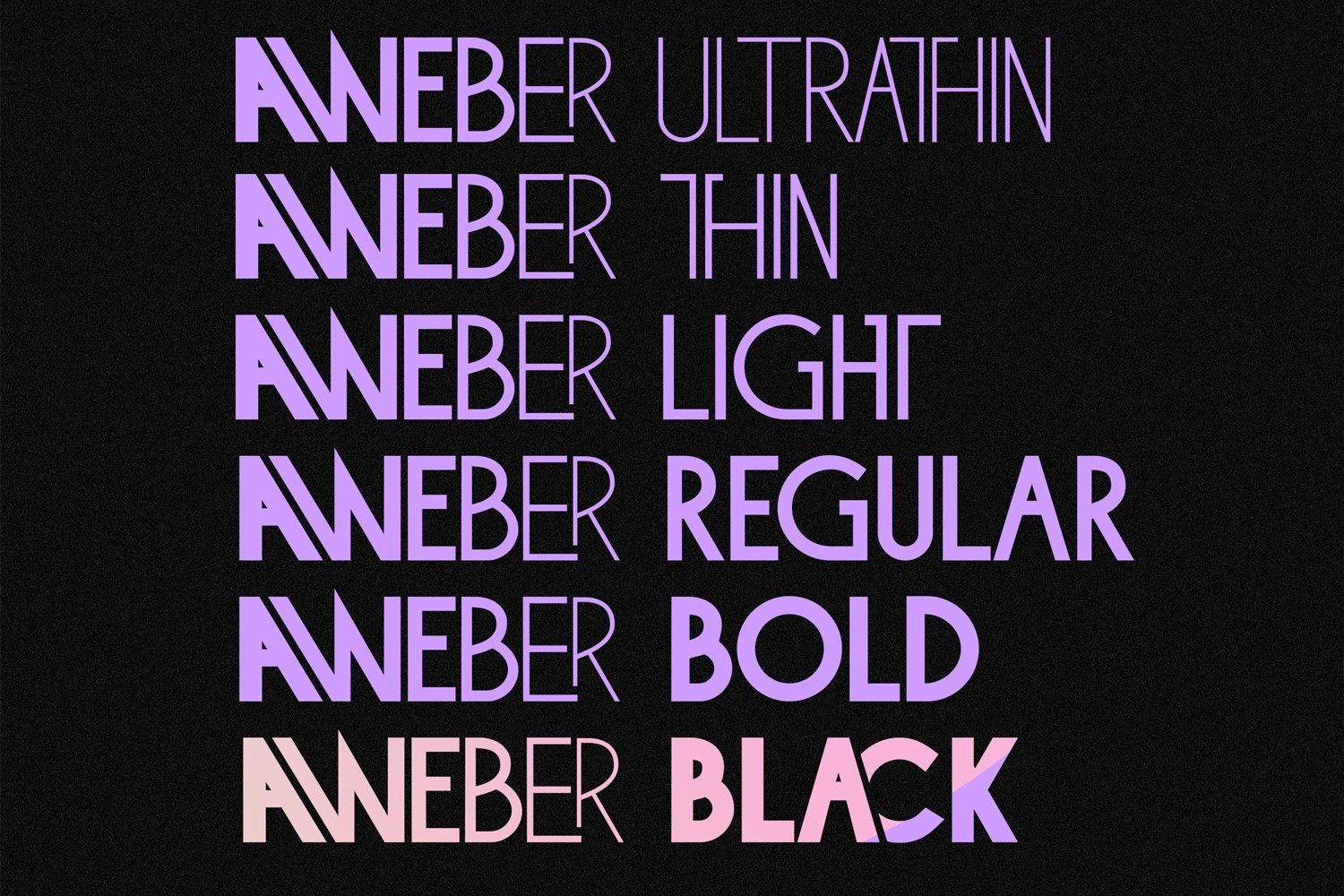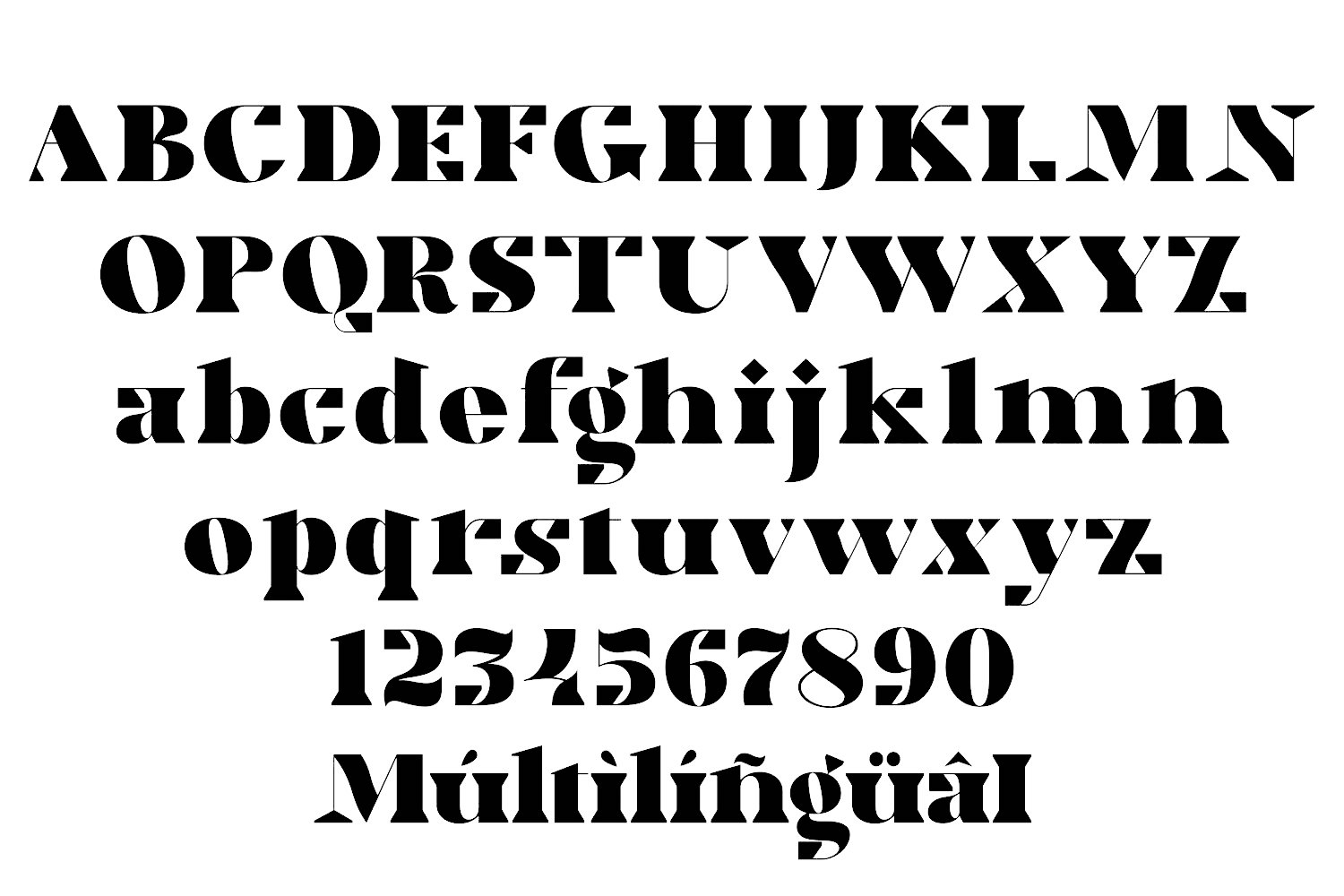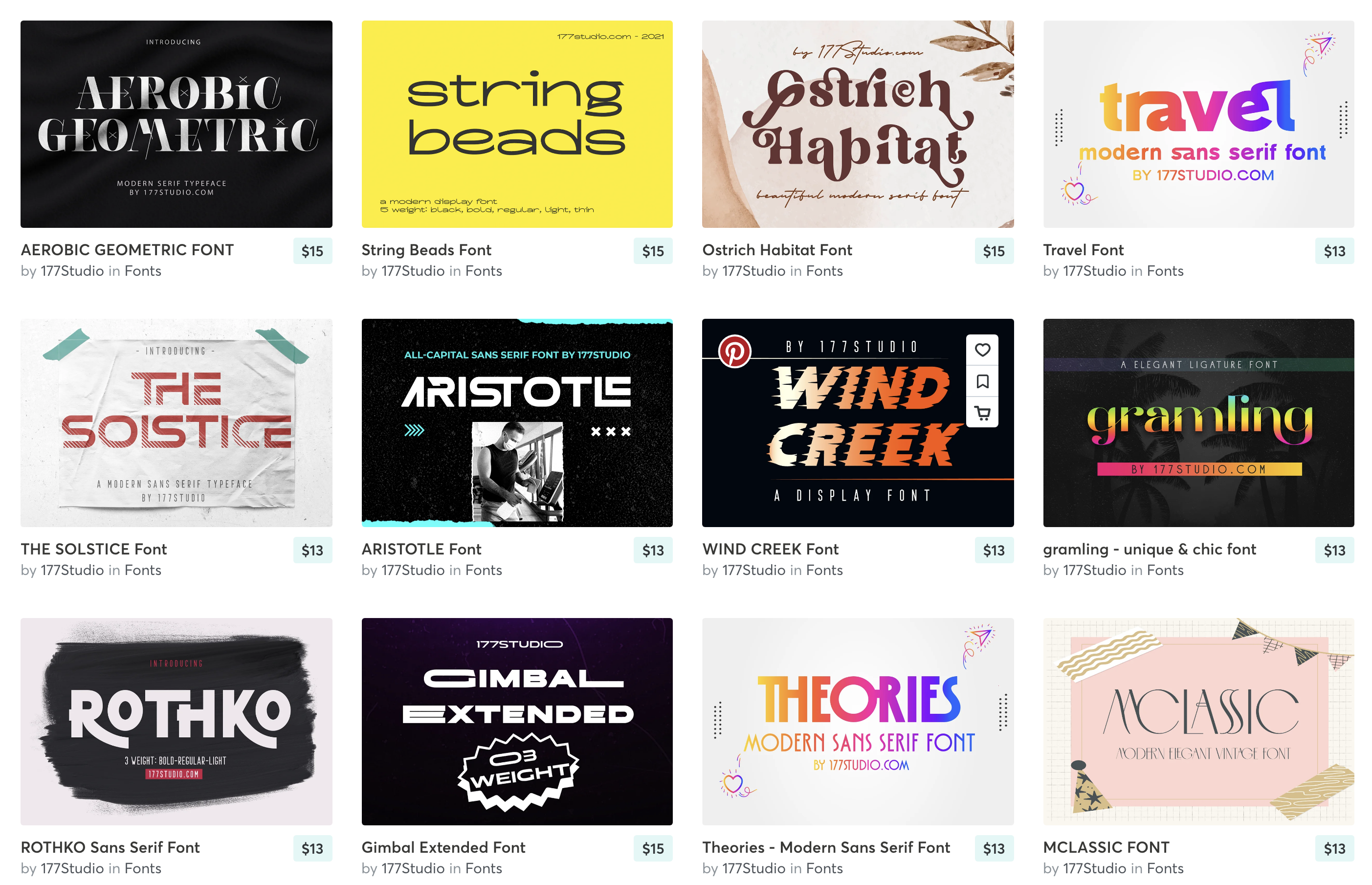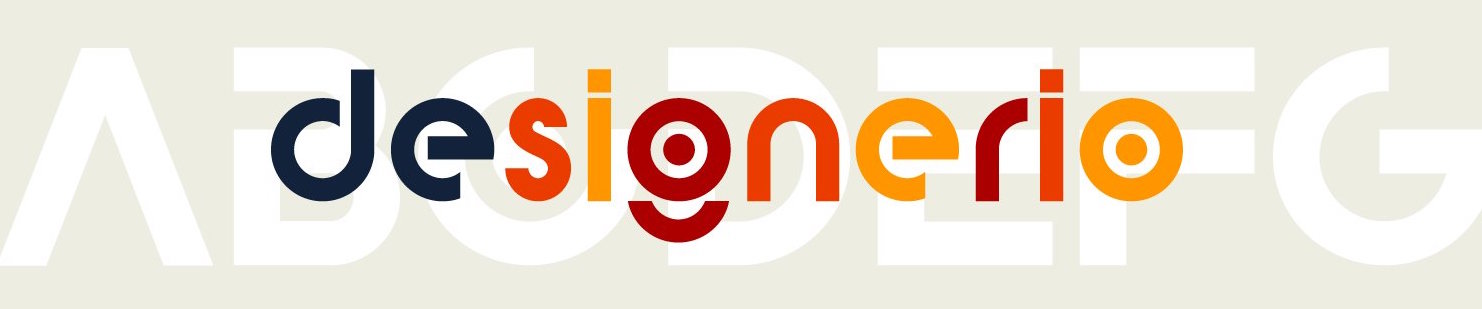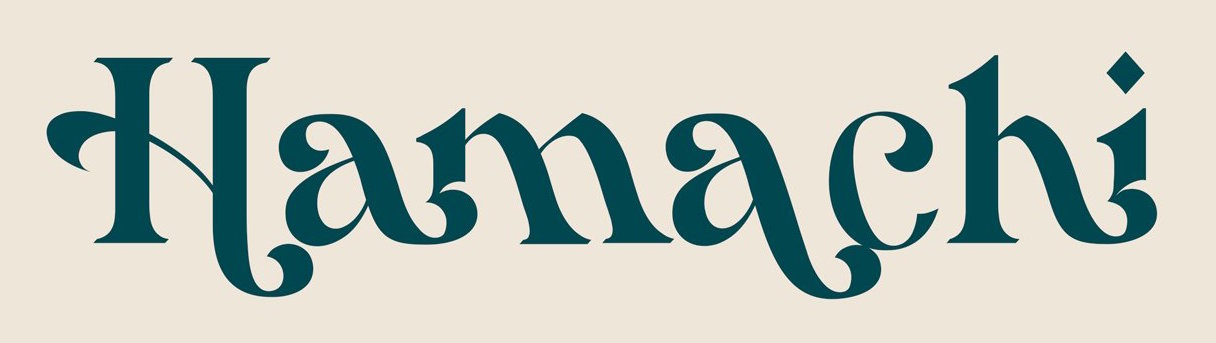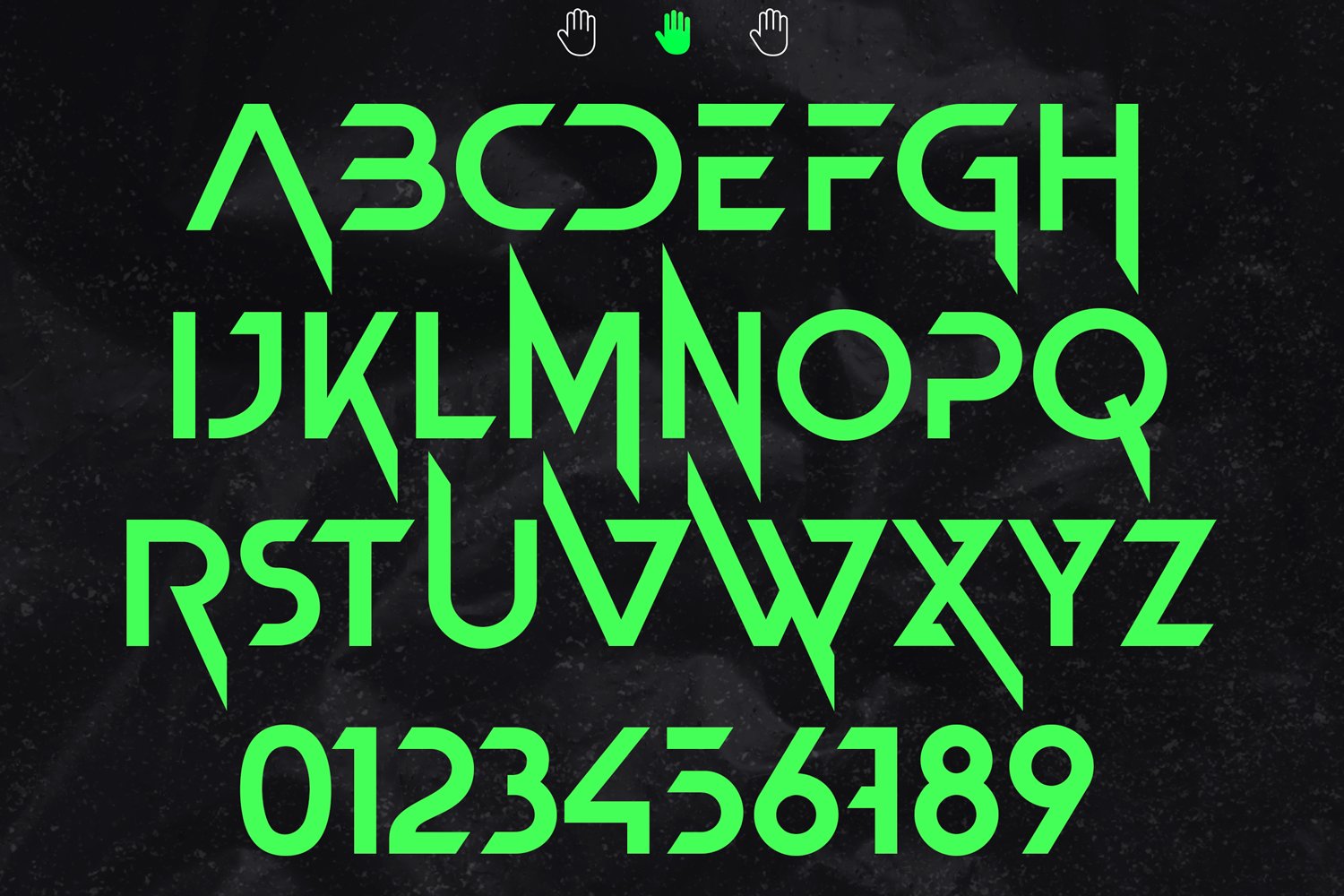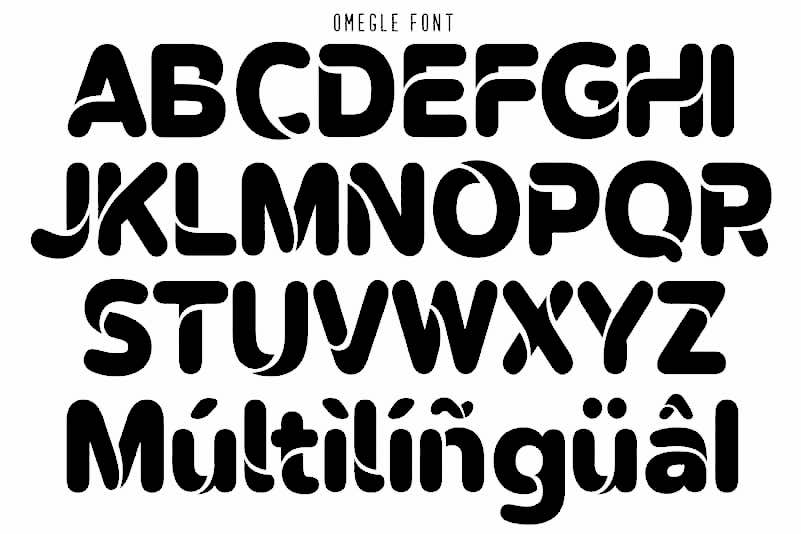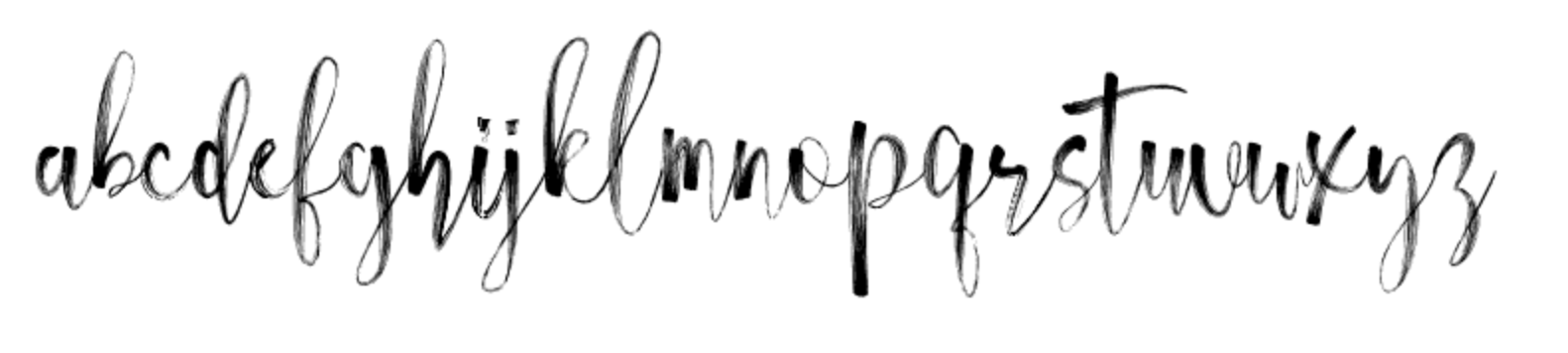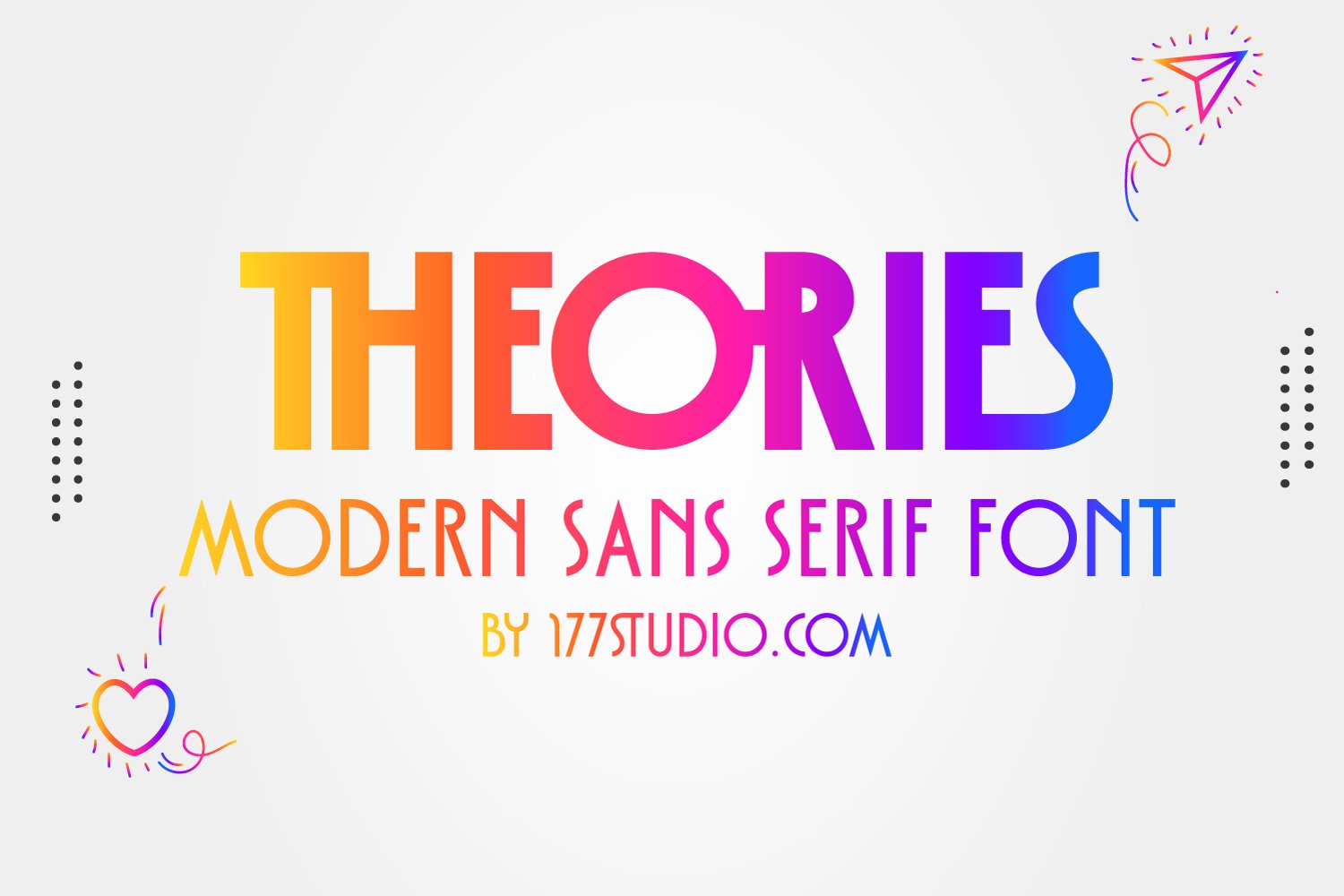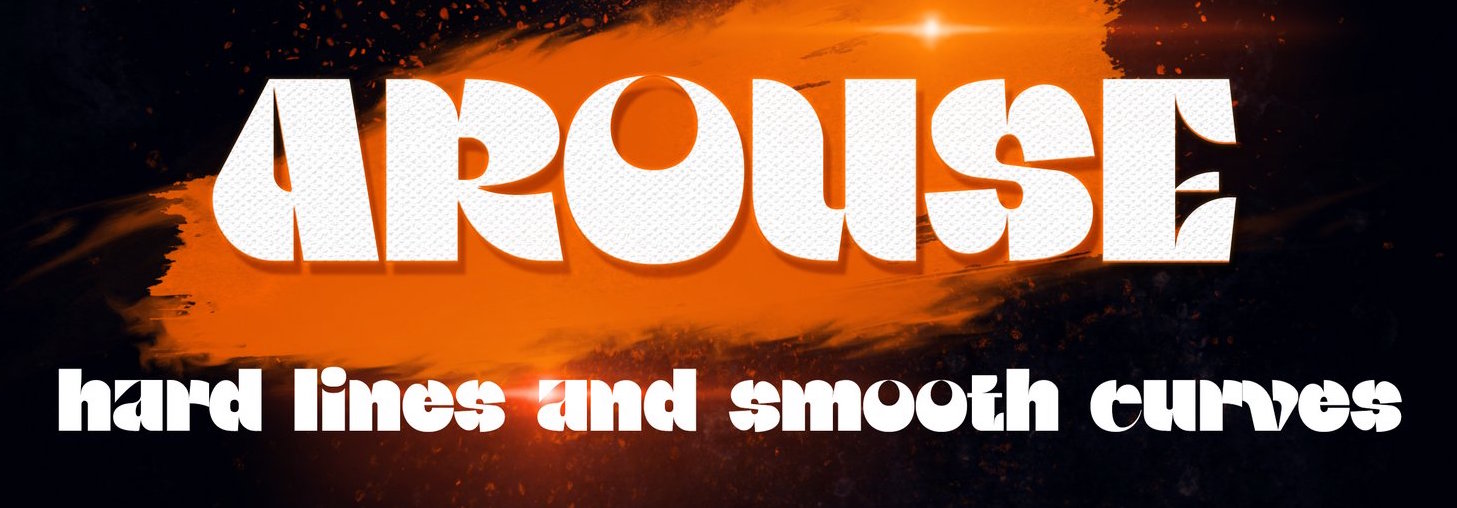
177 Studio
Aka Kenz, b. 1996. Studio in Singapore, specializing in display fonts. Their work is characterized by the frequent use of special ligatures. In 2020, 177 studio published the handcrafted typefaces Yambag, Good Things Script, Acmedia, Apollo, Autolinker, Medio, Qubely, Rigel Star, The Wave (wavy, zebra-striped), Tornado Night Party, Unique, Bqtrack-Script, Generating-Script, Hotel-Script, Sangi-Serif, Themify-Brush (a dry brush script), Extra Serif, Rhythm Script, Blogger 1983 Brush (dry brush), Bambi (monoline script), Staples Calligraphy, Bimber Brush (dry brush), Stthomas Script, Quotes (a dry brush font), Raghen (a monoline script) and Royal (a brush font). Other typefaces from 2020: Queens Gambit, Fashionable, Allright, Abnes, Ocean Wave (textured), Nuvel (textured caps), Okemo (a decorative serif), Omegle, High Speed, Kingsley, Medio Vintage (heavy caps), Karen, Amigh, Paint Drops, The Barista, Rainy Day.
Typefaces from 2021: Aretha Bridge (a decorative serif), Aerobic (a decorative serif), Aristotle, Akashic, Celebrate (a display serif), Chaman (decorative), Conical Condensed, Coxxon (a logo font), Character with Text (textured), Digital Geometric, Gimbal Extended, Gramling, Hamachi (a decorative serif), Matiott (a display serif), Mclassic (stylish thin roman caps), Newton Howard, Ostrich Habitat (a display serif), Rothko Sans, Space (a futuristic speed font), Strarat (perhaps a horror font), String Beads, The Shouting, The Solstice, Theories (a tall modern sans), Travel (a modern display sans), Walting, Wind Creek (wind emulation), Cake Circle, Aremat (a rounded monolinear sans, perhaps a neon font), Urial, Gangitem (a ligature-rich serif), Roblox (futuristic), Selena Marin (a multi-width font), Wolf (octagonal), Amidala, Qaitan (a ligature-themed display serif), Raugi, Excellent (blackletter), Abington (sans), Aweber (an avant-garde sans), The Bangles (a vintage sans), Ohio (an all caps monolinear geometric sans), Mailyn, Celattin (a hipster sans), Landing, Soothing, Tommy.